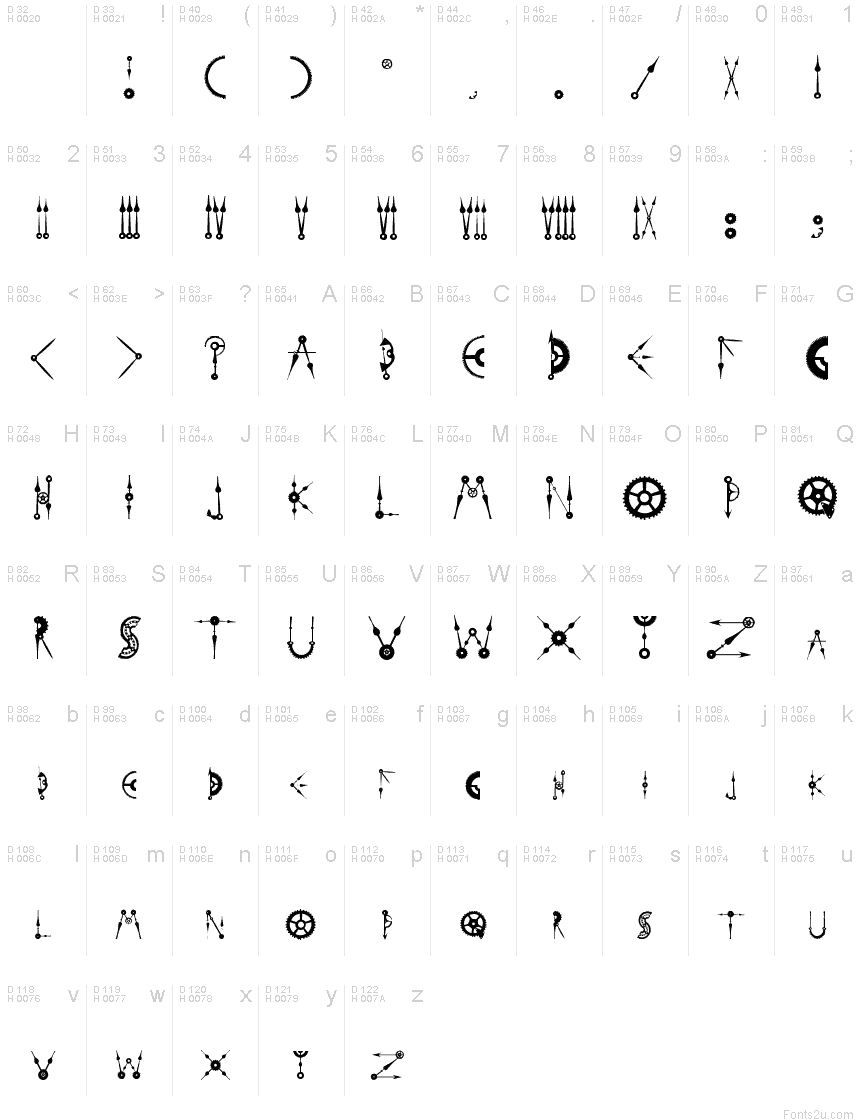
Time to get a Watch
Done for a college special studies course. I needed to express "time" as a theme through a font. It was my first attempt at making a font, and was a pretty fun challenge.
Melissa Choyce